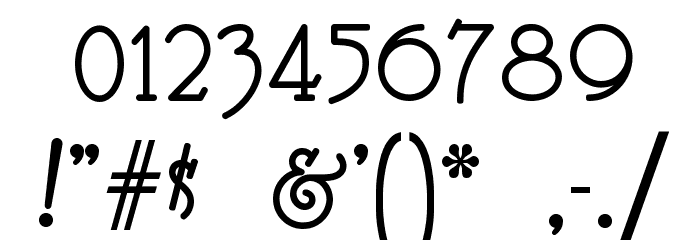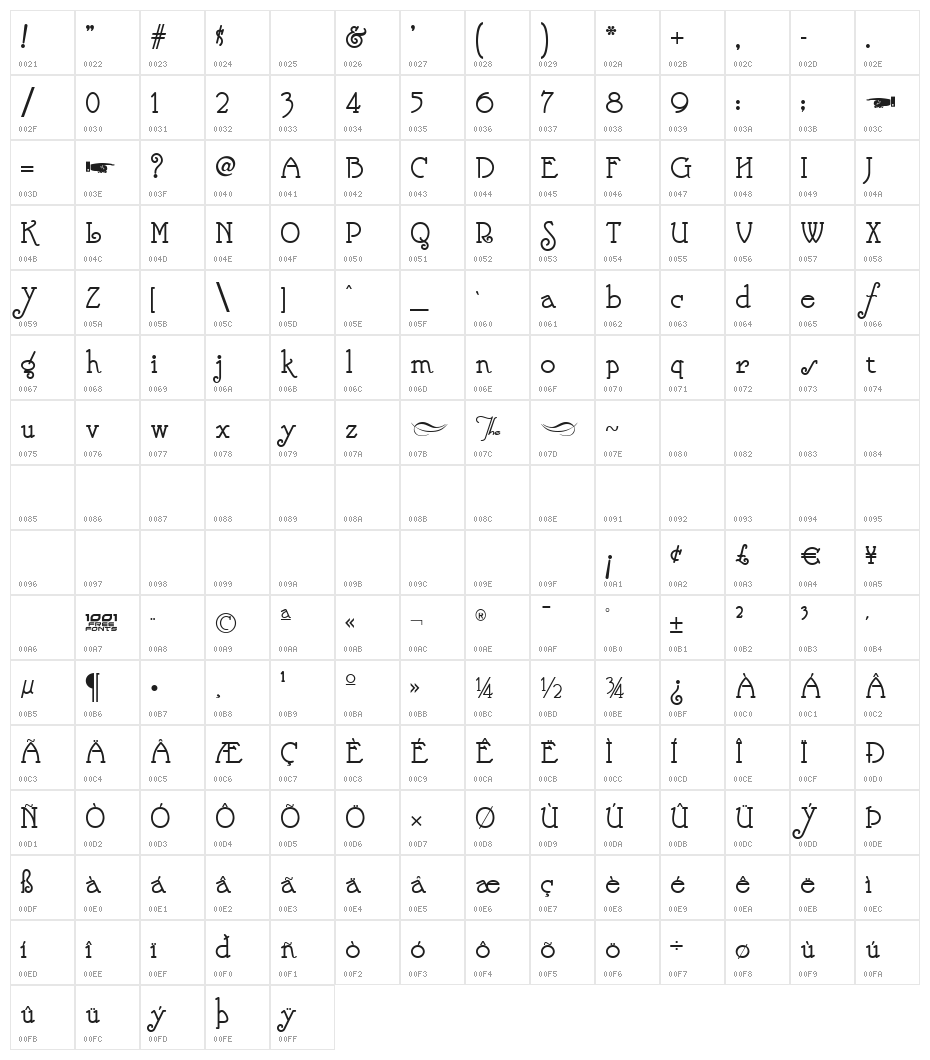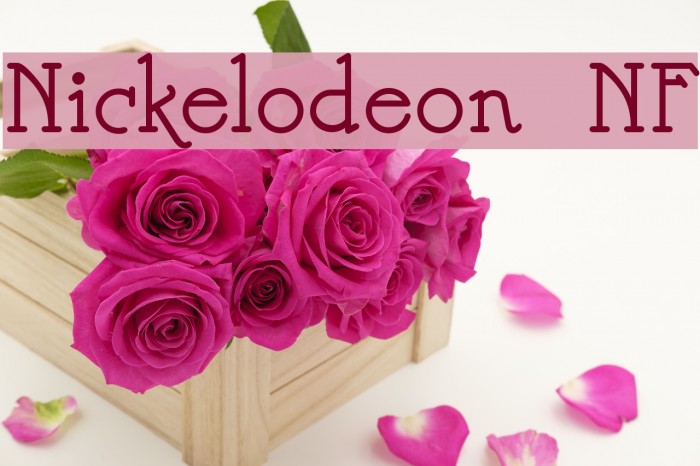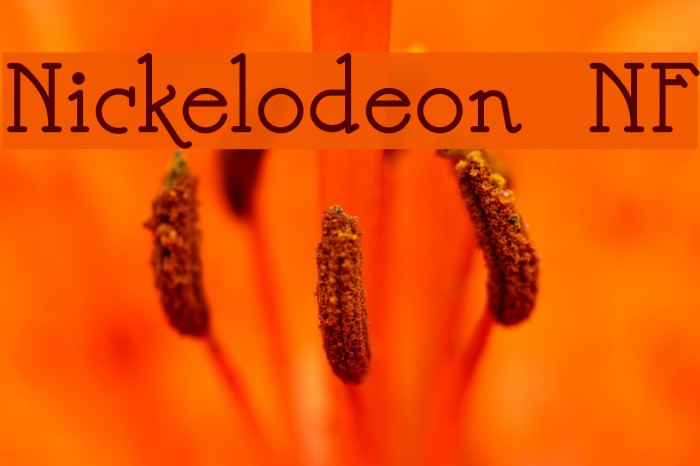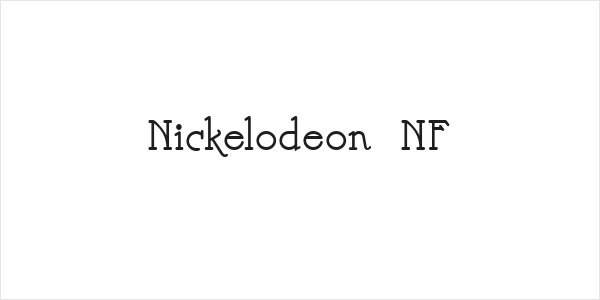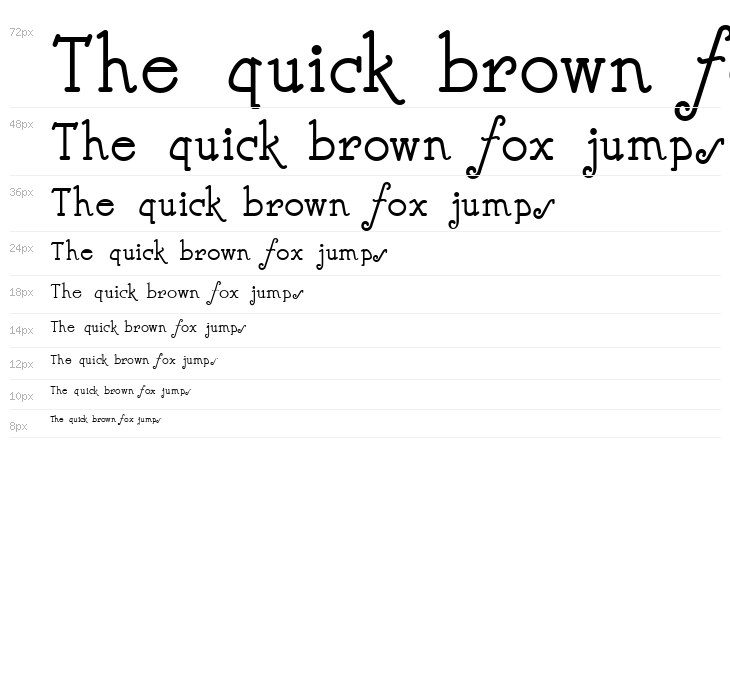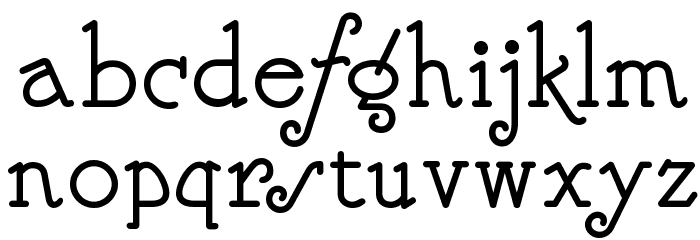
Nickelodeon NF Font
Nickelodeon NF Description
This font features a playful and whimsical design, characterized by its unique curly serifs and rounded edges. The uppercase letters exhibit a distinct flair with decorative elements, particularly noticeable in letters like 'R' and 'S'. The lowercase letters maintain a consistent style, with some characters like 'g' and 'y' having charming loops. The numerals are bold and clear, ensuring readability while maintaining the font's quirky personality. Special characters are designed with the same playful touch, making them stand out. This font is ideal for projects that require a fun and engaging visual appeal.